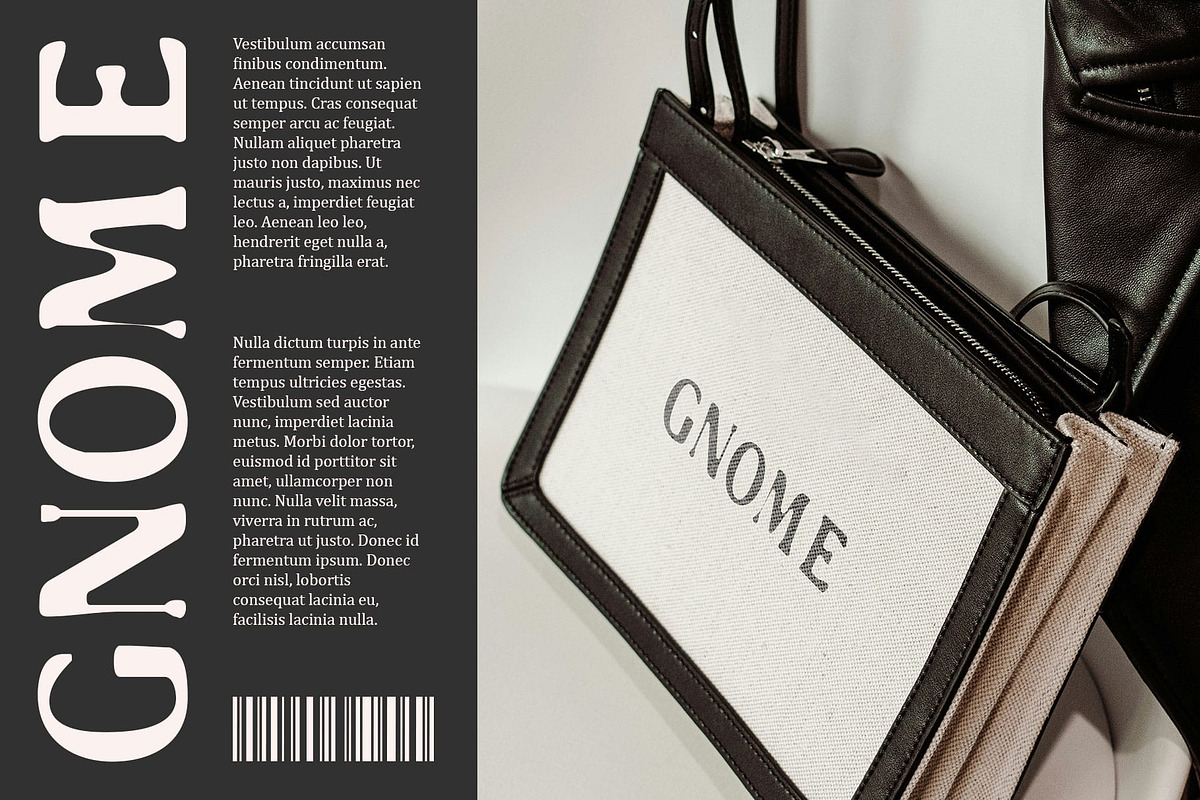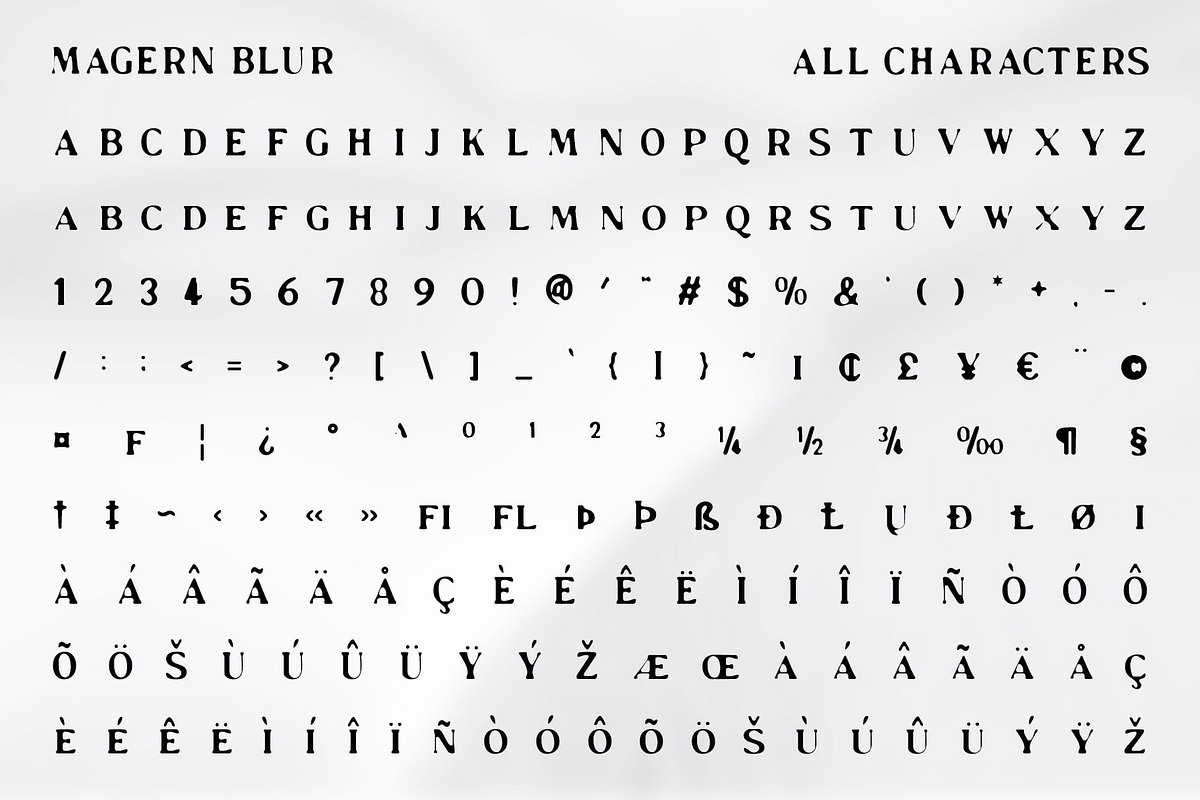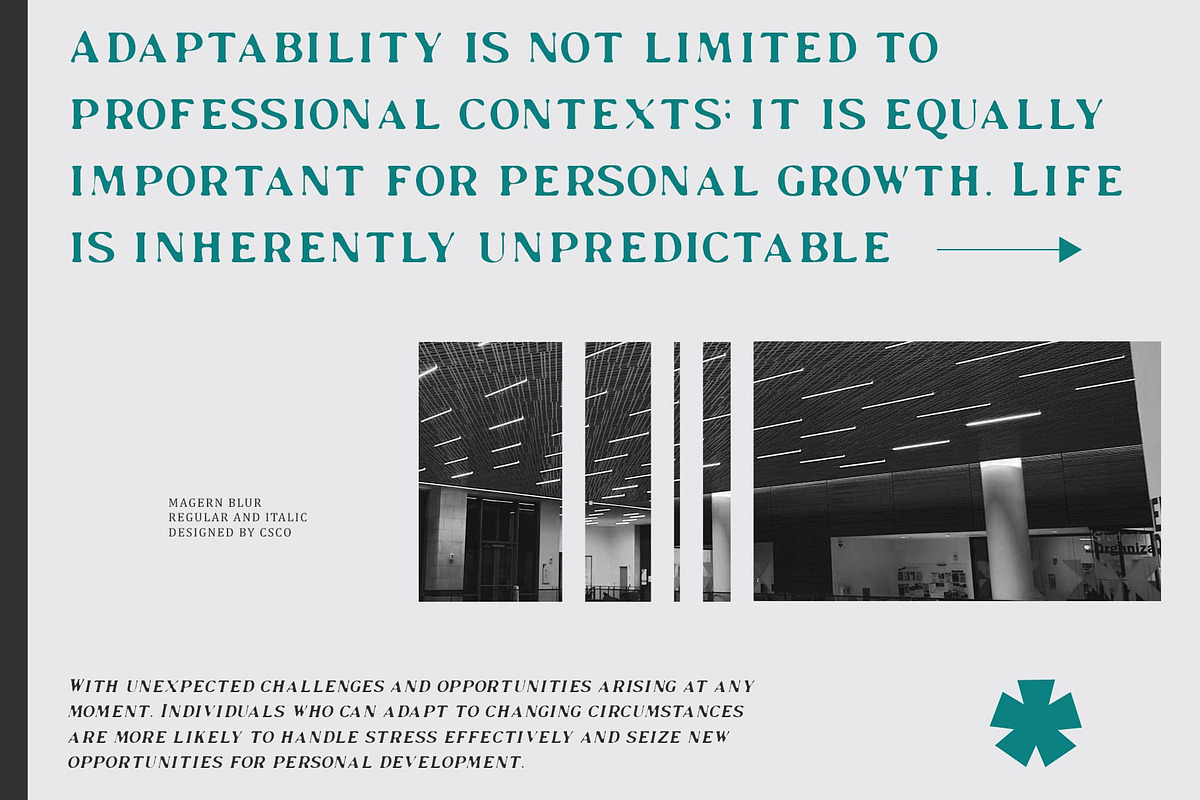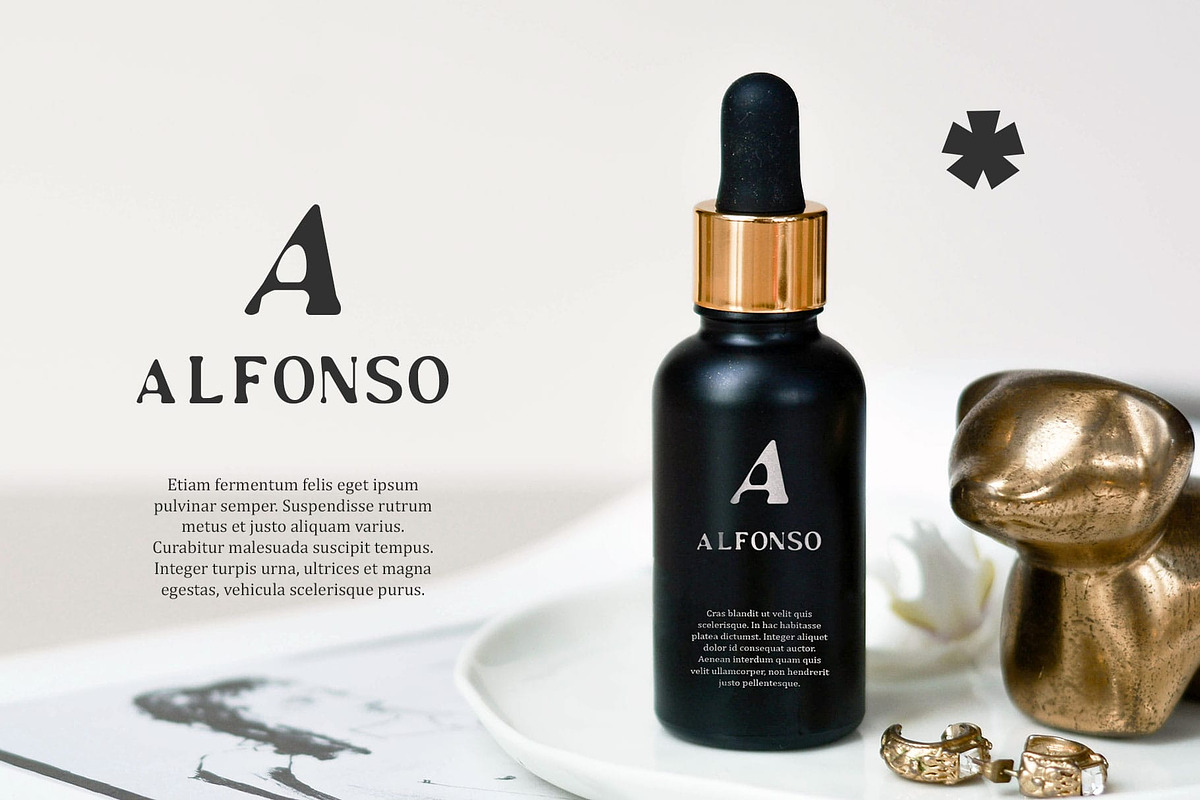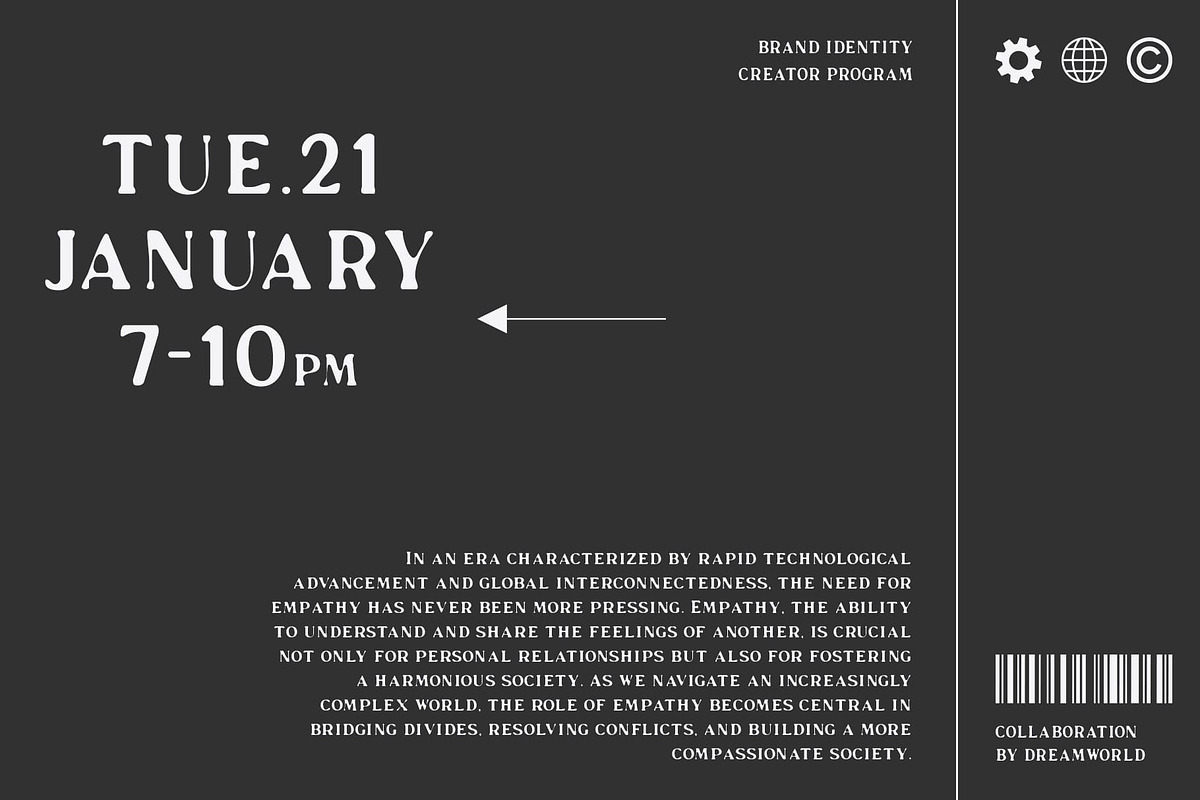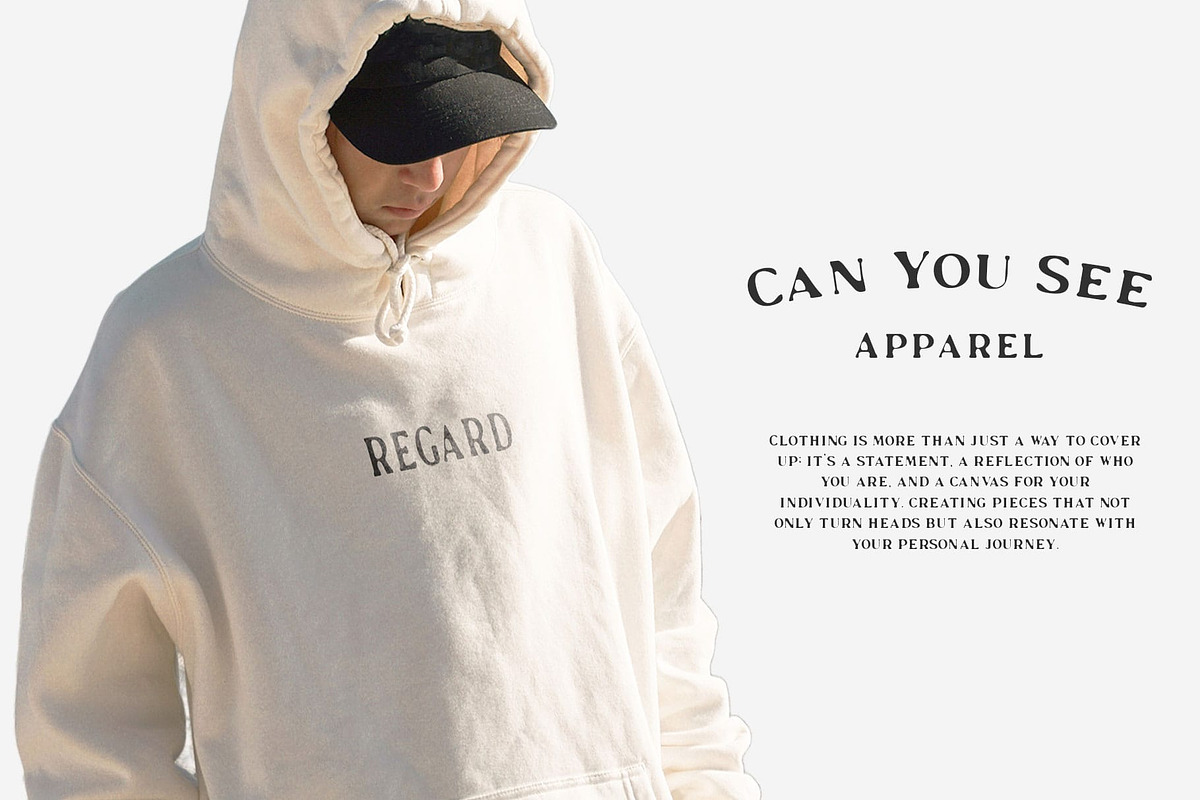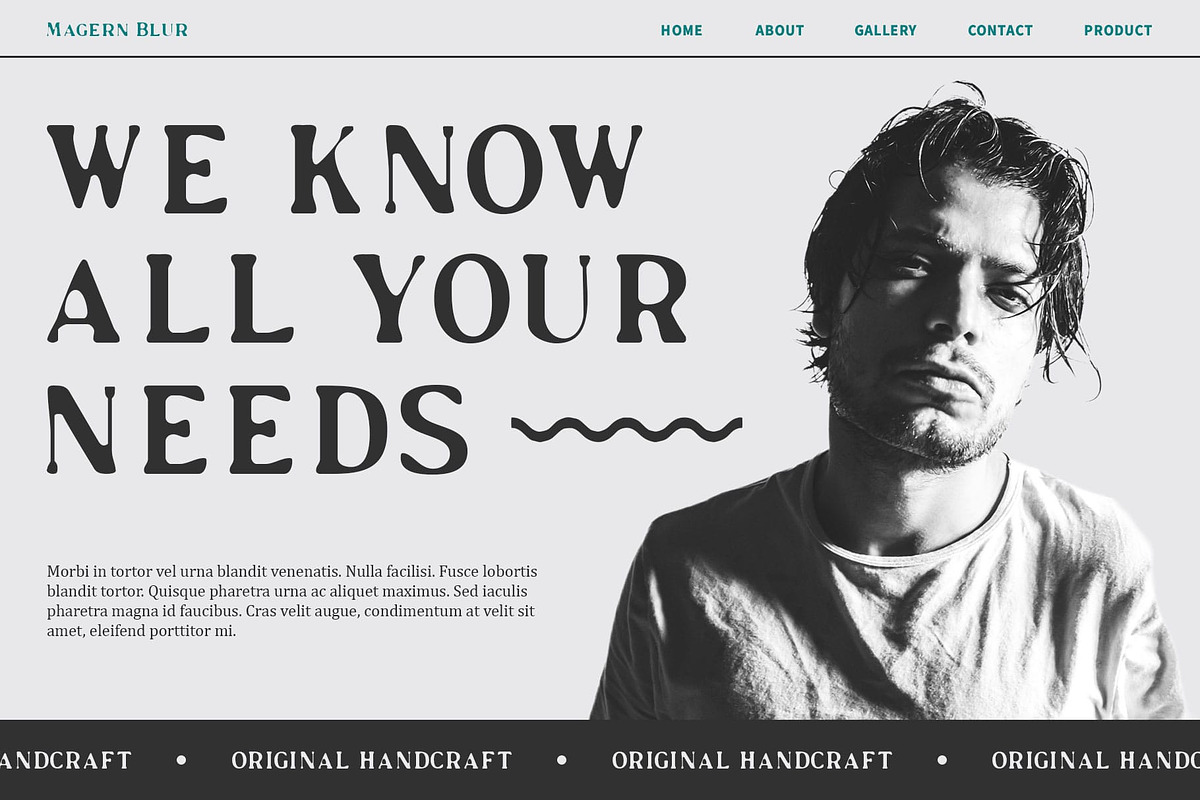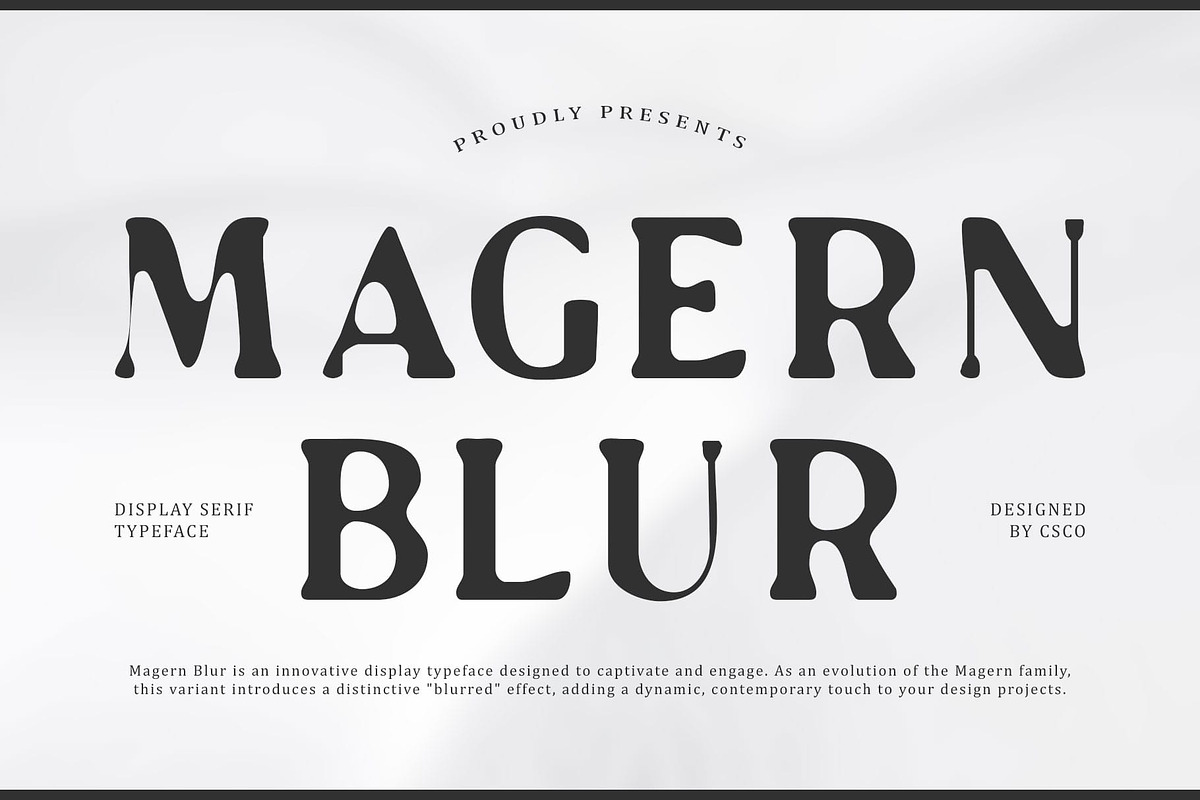
Magern Blur
Magern Blur Font: Elegant Serif Font with Classic and Contemporary Flair
Blend of Classic Sophistication and Modern Practicality Magern Blur combines the timeless elegance of classic serif design with a touch of contemporary flair. This font is expertly crafted to bring a sense of traditional sophistication while embracing practical modernity. Its refined letterforms enhance readability and add a luxurious touch, making it perfect for high-end editorial layouts and publication designs.
Subtle Blur Effect for Enhanced Elegance The subtle blur effect in Magern Blur introduces a modern twist to its classic design. This effect softens the edges and adds a hint of depth, creating a sophisticated and stylish appearance. The blur enhances the overall aesthetic without compromising readability, offering a unique balance between elegance and practicality.
Ideal for Editorial and Publication Layouts Magern Blur is specifically designed for editorial layouts, including magazines, journals, and other publications. Its classic serif elements provide a timeless feel, while the contemporary blur effect ensures a fresh and professional look. This combination makes it an excellent choice for projects that require both visual efficiency and a touch of luxury.
Versatile for Professional and Luxurious Designs Whether used in magazine articles, high-end branding, or elegant publication materials, Magern Blur offers versatility and style. Its elegant design and modern blur effect make it suitable for a range of projects that aim to achieve a balance between classic sophistication and contemporary practicality.